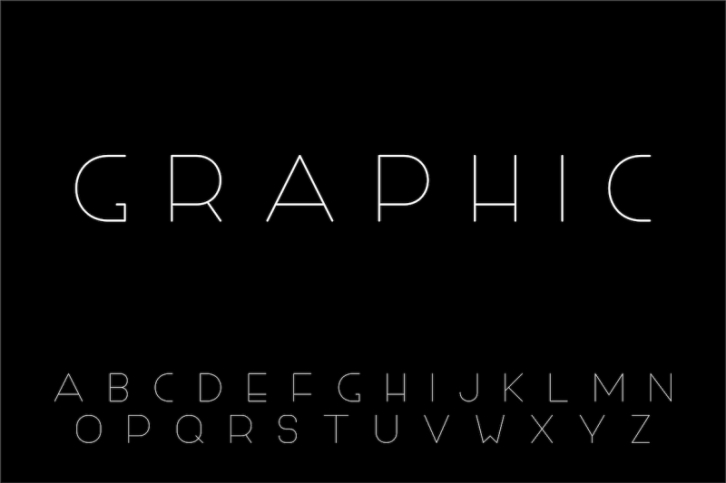
English minimalistic alphabet FONT Download
Vector graphic English alphabet - minimalistic design, thin latin letters.
Very useful and can be used for your any design and ideas.